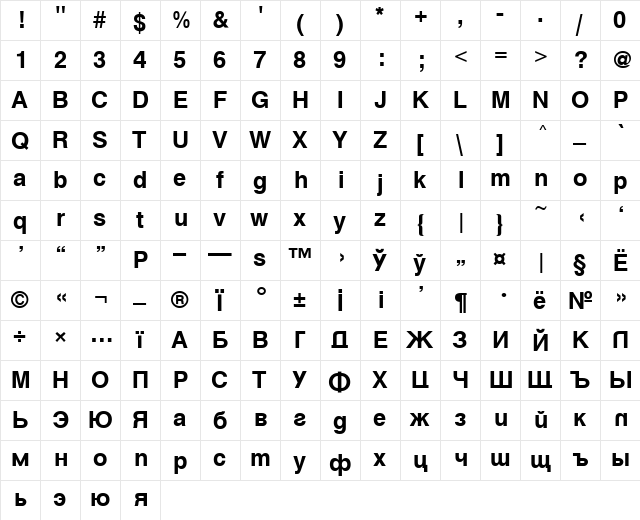
Vanta Bold Plain Font Preview
Vanta Bold Plain
Vanta Bold Plain Font Details
Design Context for Vanta Bold Typeface
Vanta Bold is a composed and adaptable typeface that performs quietly and consistently across a wide range of design contexts. The heavy weight commands attention and anchors typographic hierarchies.